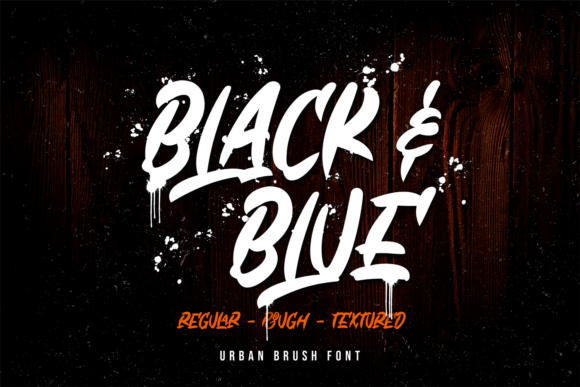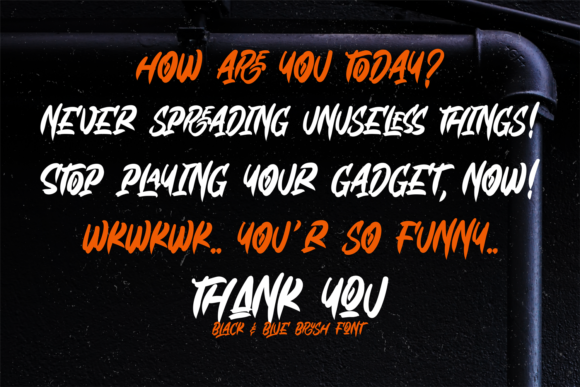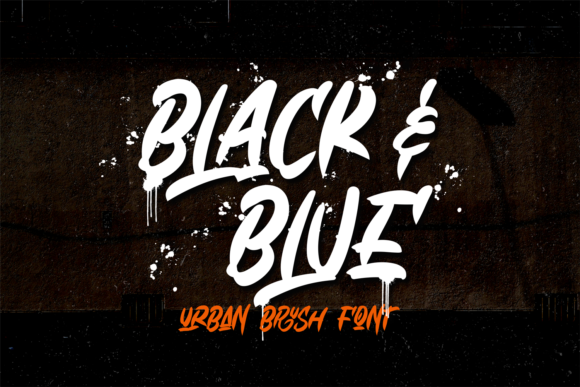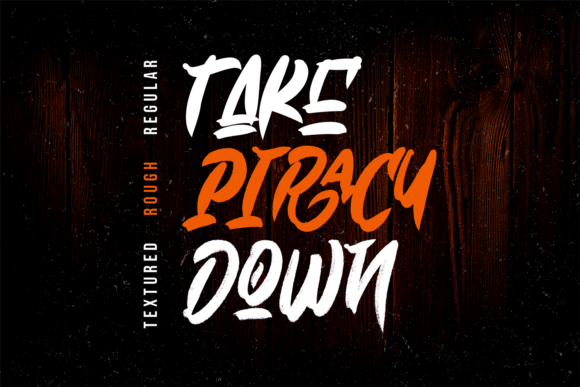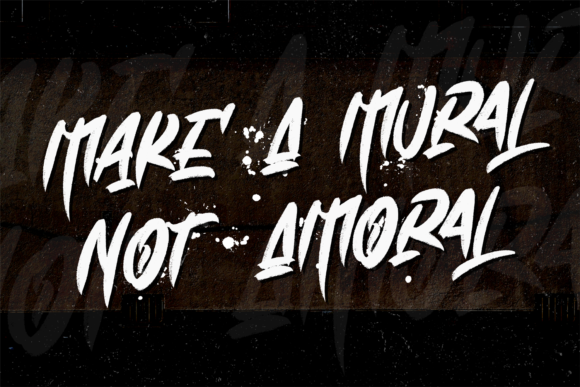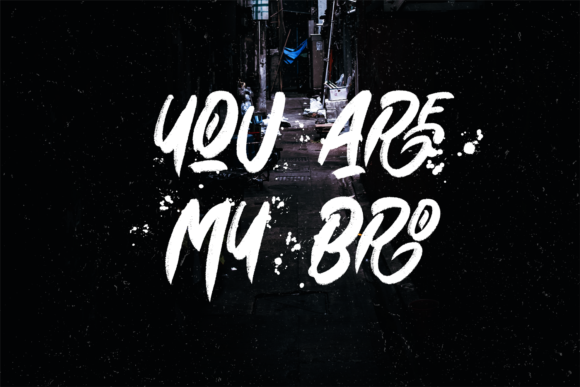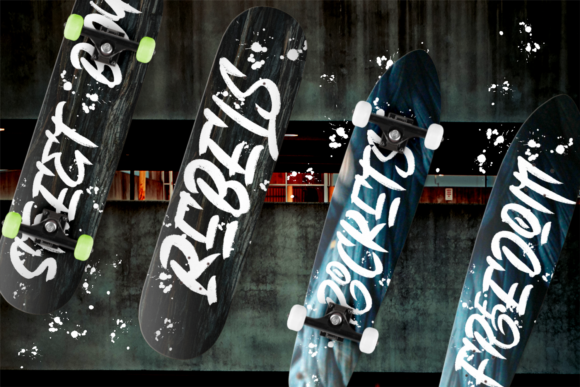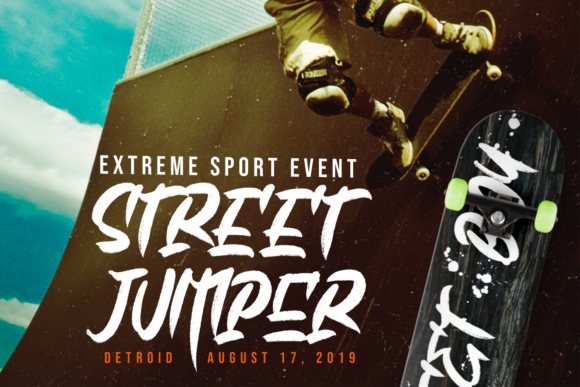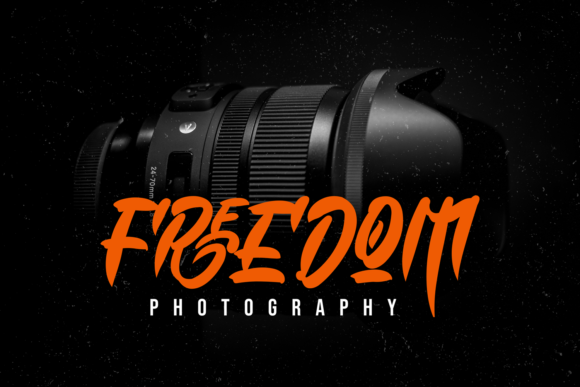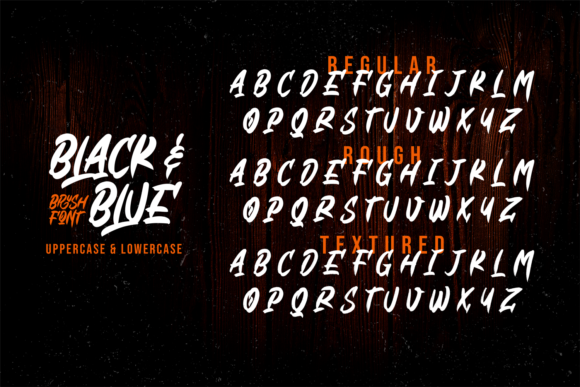
HomeScript FontsBlack & Blue Font Script Fonts Black & Blue Font FacebookXPinterestWhatsApp Black & Blue Font Poster 2 Black & Blue Font Poster 3 Black & Blue Font Poster 4 Black & Blue Font Poster 5 Black & Blue Font Poster 6 Black & Blue Font Poster 7 Black & Blue Font Poster 8 Black & Blue Font Poster 9 Black & Blue Font Poster 10 Black & Blue Font Poster 11 About Black & Blue Font Black & Blue is a brush font with 3 styles; regular, rough, and textured. Great for a variety of projects! DOWNLOAD ON CREATIVE FABRICAThis font is sold and delivered by Creative Fabrica. Font Canyon may earn a commission if you buy through this link. People also explored Saillendya Font Rautter Font Independent Font Photograph Font Coffina Font Blondeta Font Heather Black Bella Canvas 3001 Mockup Hello Spooky Font Andaretta Font 297 0 TagsBlack & Blue Font Previous articleRolyta FontNext articleEstella Font LEAVE A REPLY Cancel reply Comment: Please enter your comment! Name:* Please enter your name here Email:* You have entered an incorrect email address! Please enter your email address here Website: Save my name, email, and website in this browser for the next time I comment. Personal Use Free Harmony Personal Use Free Read more about this font Gunplay Personal Use Free Read more about this font Cuttie Personal Use Free Read more about this font Astercla Personal Use Free Read more about this font BLOG Top 10 Handwritten Fonts That Elevate Your Designs Top 10 Handwritten Fonts That Will Elevate Your Designs Handwritten fonts bring a warm, personal touch to every creative project. Whether you're designing logos, invitations,... Modern Sans-Serif Fonts That Brands Love in 2025 Top 7 Google Fonts Alternatives for Faster and Privacy-Friendly Web Design (2025) Free vs Paid Fonts: Why Investing in Premium Fonts Is Worth It